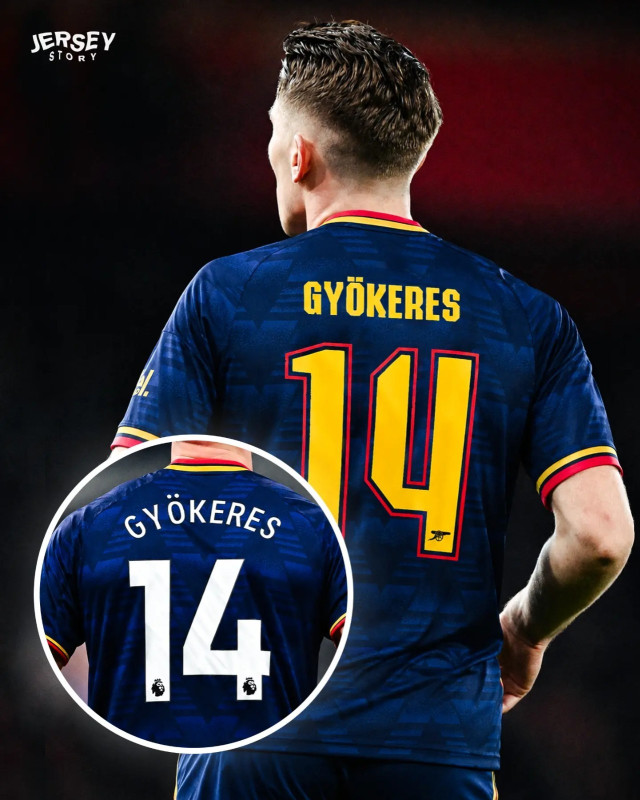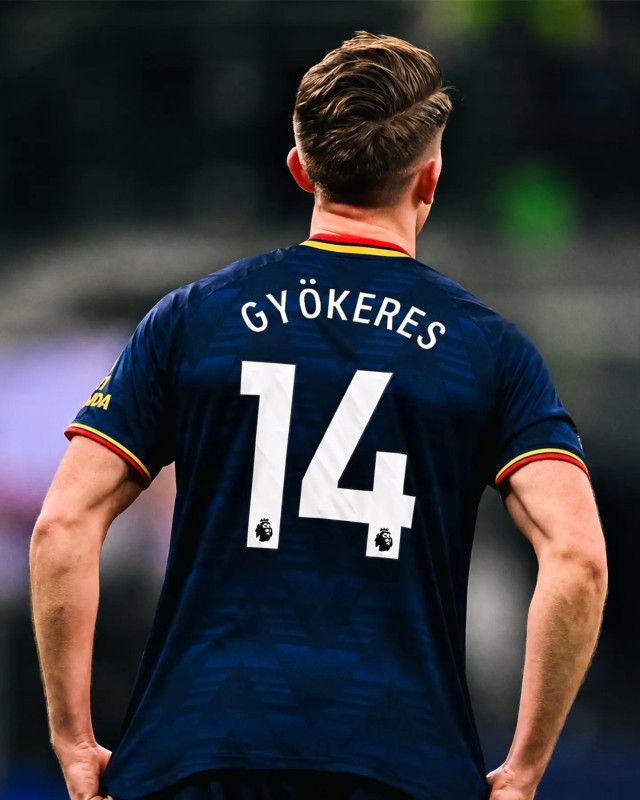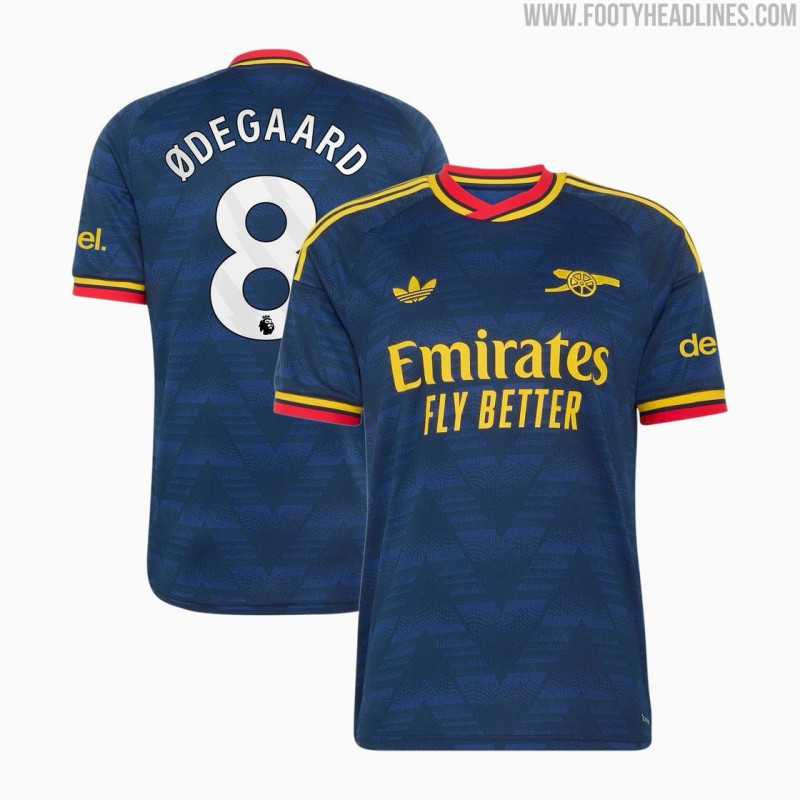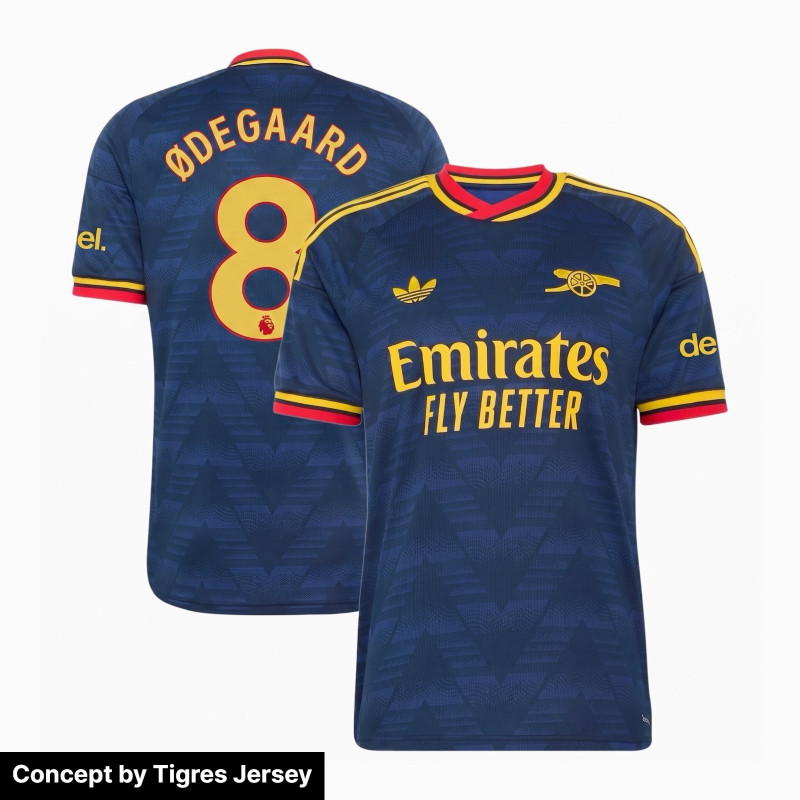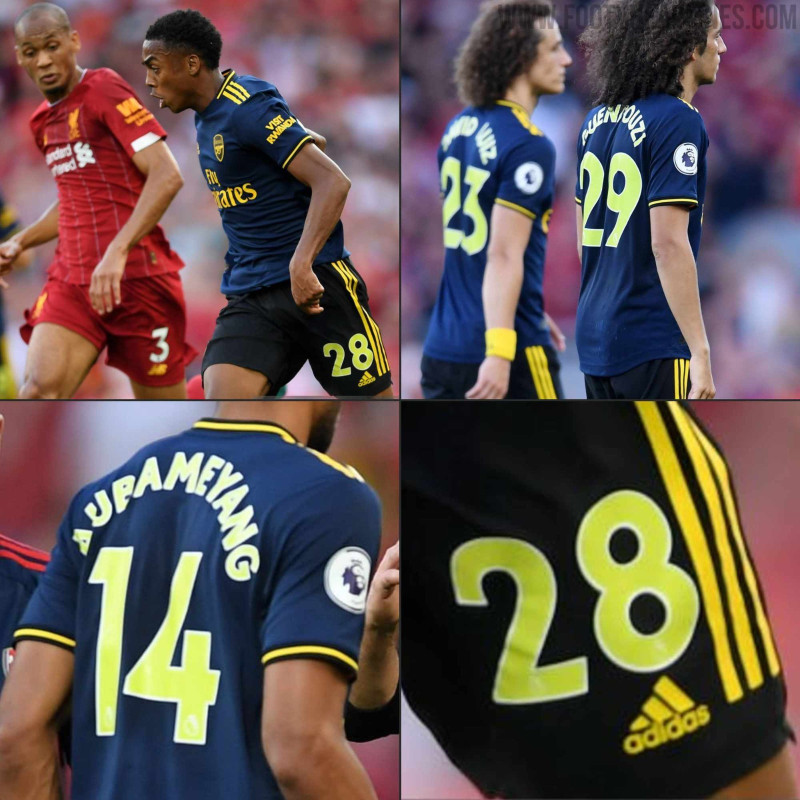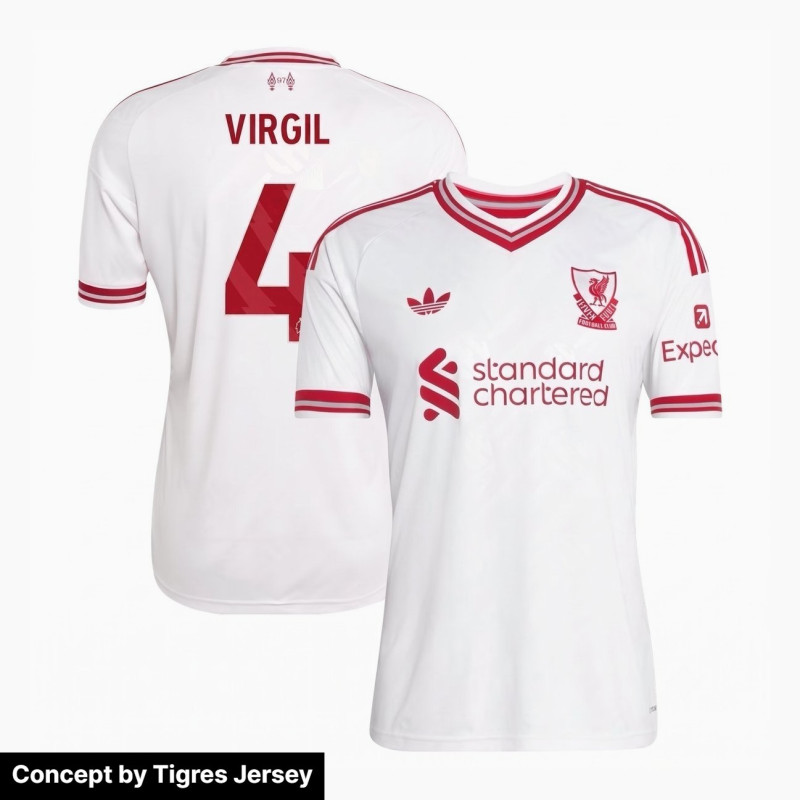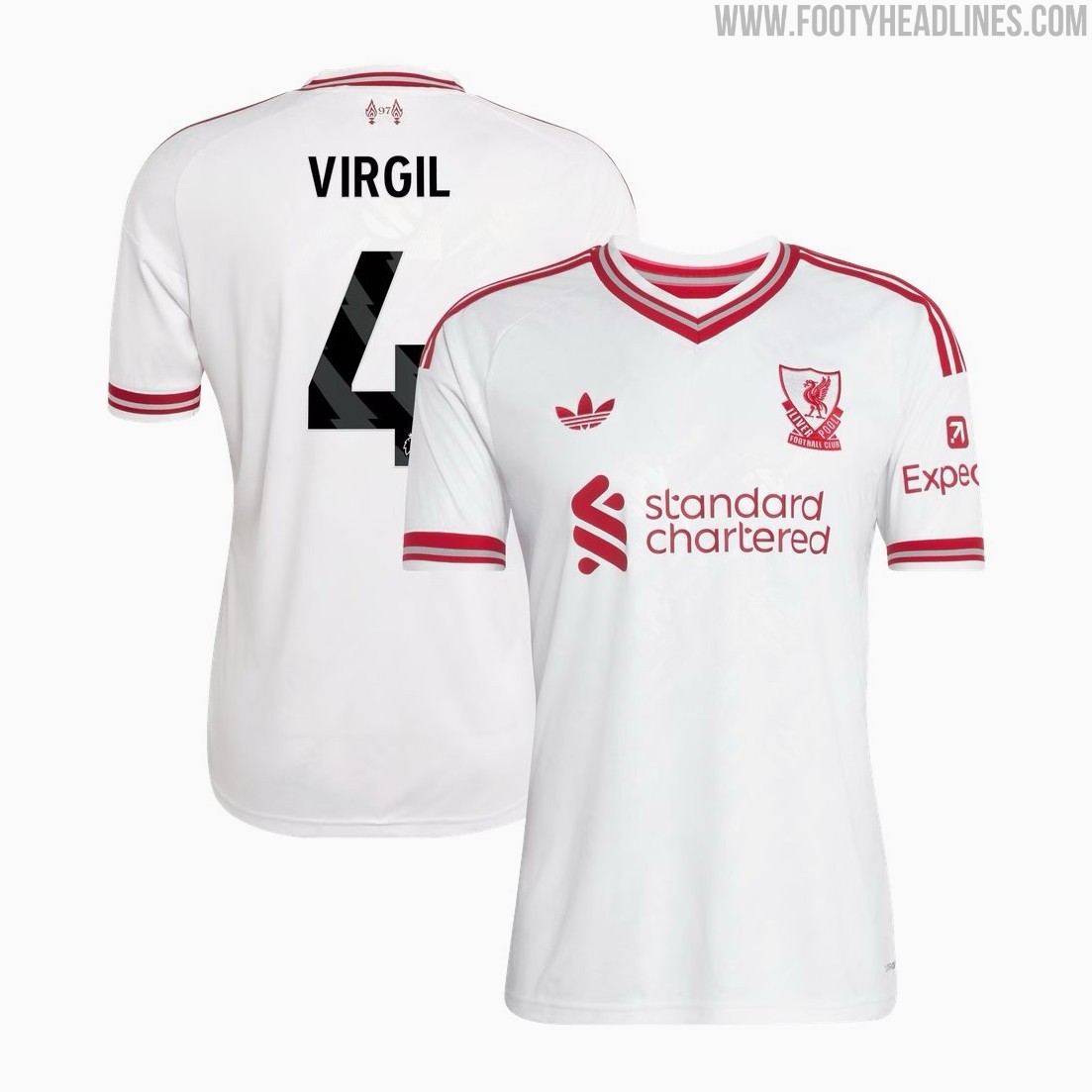
The Premier League Needs to Fix Its Inflexible Kit Font
- Premier League's Restrictive Font Policy: The Premier League enforces a strict limit of only five approved color options (white, black, red, navy, and hi-vis yellow) for all club kit fonts, making it the most restrictive among European football leagues.
- Impact on Kit Aesthetics: This inflexible policy causes visual mismatches as clubs are forced to choose from generic font colors that often clash with the custom, precise accent colors of their bespoke kit designs, as seen with examples from Arsenal and Liverpool.
- Solution from Other Leagues: Other major leagues like Serie A, La Liga, and MLS allow clubs to customize font colors to match their kits while maintaining a standardized typeface, demonstrating that the Premier League could easily solve its color mismatch problem by relaxing its current restrictions.
While standardized league typefaces have become standard practice across European football, the Premier League remains by far the most restrictive when it comes to visual execution. Even after introducing a refreshed typeface some years ago, the league continues to enforce a strict limit of just five approved colorways for all 20 clubs: white, black, red, navy, and hi-vis yellow.
Mismatching Colors in Premier League due to Just 5 Color Options
The issue with the Premier League's regulation is that it clashes with kit design. Kit manufacturers create bespoke jerseys featuring precise accent colors such as gold, maroon, cream, mint, or even a simple yellow. However, when those shirts are worn in English top-flight matches, teams are forced to pick from the five stock color options.
A prime example is visible on Arsenal's 26-27 away kit, where a custom color-matched nameset used in cup competitions seamlessly aligns with the shirt's detailing, whereas the mandatory Premier League alternative visually disconnects from the jersey design. In the 26-27 season, Arsenal decided to use white names and numbers - after in 19-20, they chose the hi-vis yellow option that clashed with the yellow of the shirt.
Similarly, Liverpool chose black for their Premier League 26-27 away kit, simply because the red EPL option is of a more striking shade than the red Adidas used.
Time to Follow Other Leagues
Other top competitions have already shown that brand consistency and kit harmony can easily coexist. Leagues like Serie A, La Liga, and MLS mandate a single official font for readability, but give clubs complete freedom to customize the font colors to match each kit's specific trim. Meanwhile, the Bundesliga offers complete creative freedom by allowing bespoke fonts for every shirt.
By simply relaxing color restrictions while keeping its official typeface, the Premier League could instantly solve color mismatches and elevate shirt design across the league.